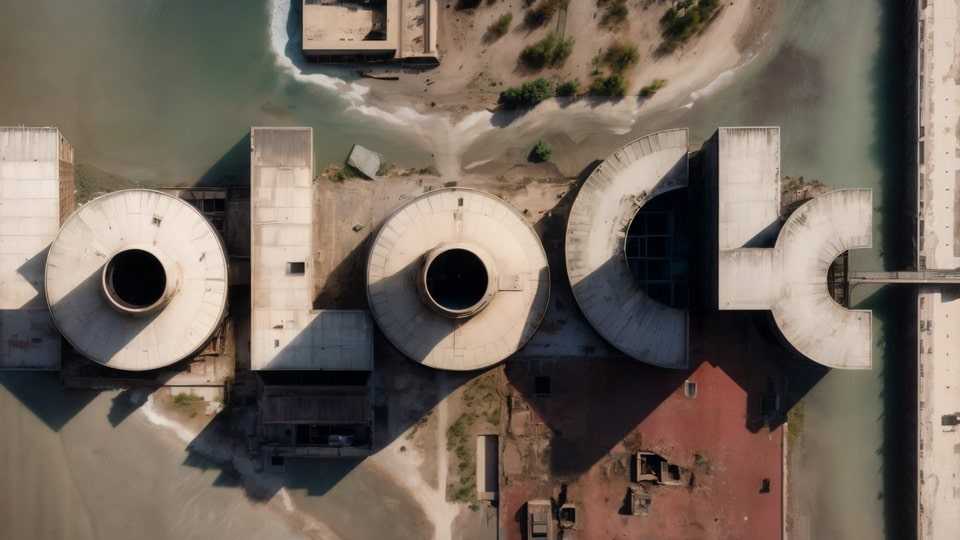
Block Font › Fontesk – Download Grátis
Download Block font, an accidental display typeface inspired by metal-concrete shapes of abandoned buildings.
Designer: Alexey Atapin